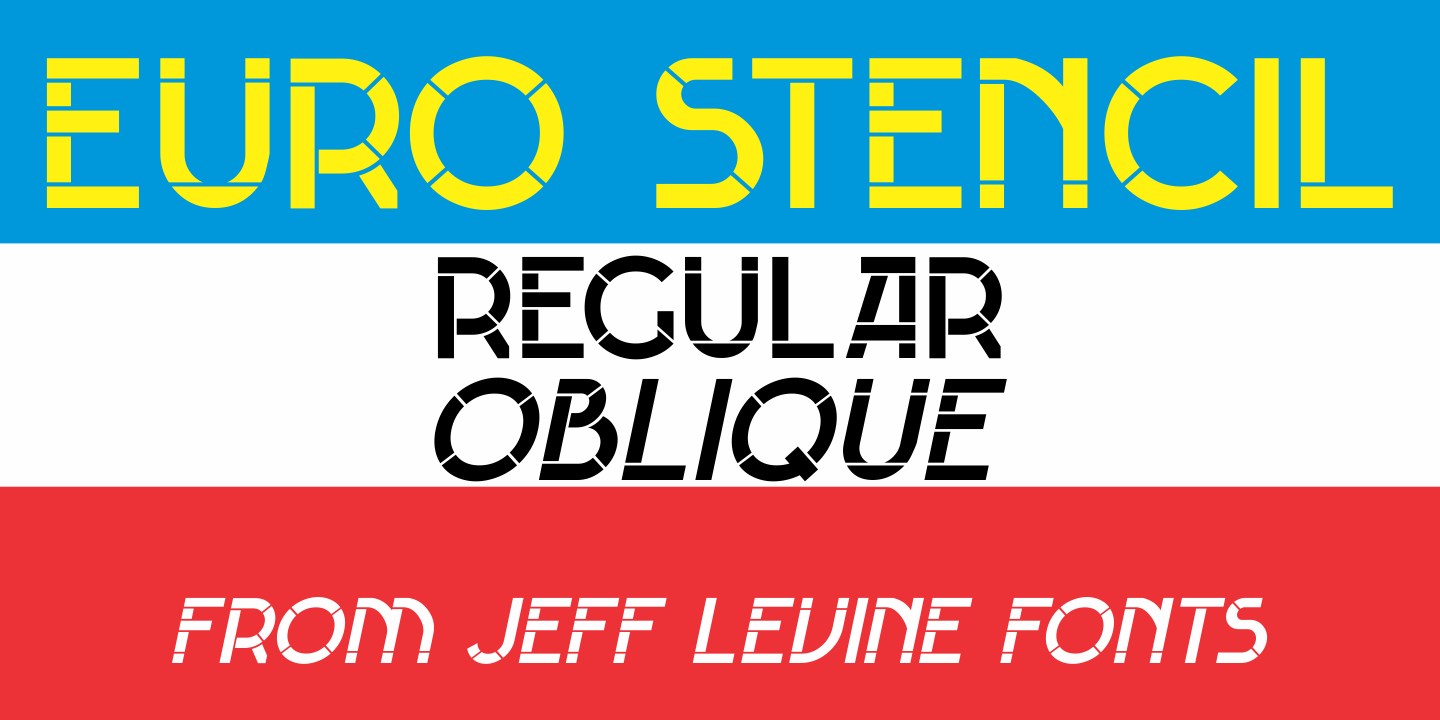
Euro Stencil JNL Font excels in industrial design applications including military-inspired branding, shipping container graphics, warehouse signage, tactical gear labeling, urban streetwear designs, construction site materials, automotive parts packaging, industrial equipment branding, military surplus marketing, and utilitarian product designs. This robust typeface seamlessly combines European stencil tradition with practical functionality, making it an essential tool for designers working on projects that require durability, clarity, and authoritative industrial character.
What makes Euro Stencil JNL Font particularly exciting is its authentic recreation of classic European military and industrial stenciling that captures the essence of post-war utilitarian design and functional typography. The font features bold, cut-out letterforms with distinctive stencil breaks that reflect the practical requirements of spray-painting and mechanical reproduction used in European industrial and military applications. Its robust construction and high contrast design ensure maximum legibility even under challenging conditions, while the characteristic stencil gaps add visual interest and authentic military-industrial character. The typeface's ability to convey both authority and practicality makes it perfect for brands seeking to establish connections with European industrial heritage and military precision. Each character has been carefully designed to maintain the authentic stencil aesthetic while ensuring optimal performance across modern design applications.
The Euro Stencil JNL Font family encompasses essential variations including Regular and Bold weights, maintaining consistent European stencil DNA while offering flexibility for hierarchical industrial typography. The family may also feature condensed versions that preserve the military character while maximizing space efficiency, plus extended variants for large-scale industrial applications. Special cuts could include weathered or distressed versions that enhance the authentic military surplus appearance, along with outline styles that emphasize the stencil construction method.
Industrial design professionals consistently choose Euro Stencil JNL Font Free Download for projects demanding authentic European military aesthetics and industrial functionality. This exceptional typeface has gained recognition in the industrial design community for its meticulous attention to historical stencil details and exceptional durability characteristics. The font's practical character set includes military-standard punctuation marks, European numerals, and specialized symbols that support comprehensive industrial branding and utilitarian communication needs.
Whether you're developing military-inspired product branding, creating industrial signage systems, designing tactical equipment graphics, or crafting utilitarian marketing materials, Euro Stencil JNL Font delivers exceptional results. Its industrial aesthetic makes it particularly suitable for military surplus retailers, construction companies, automotive manufacturers, shipping organizations, and tactical gear brands seeking to communicate durability, precision, and European industrial heritage through their visual identity.
The font's technical specifications ensure optimal performance across all industrial applications while maintaining its authentic stencil character. It includes comprehensive character encoding that supports European language requirements, making it suitable for international industrial brands and multilingual military-inspired projects. The careful digitization process preserves the distinctive characteristics of European stencil cutting while ensuring consistent reproduction across both digital displays and industrial printing applications.
Professional designers appreciate Euro Stencil JNL Font's ability to convey industrial strength and European military precision while maintaining commercial viability and brand recognition. Its authoritative presence commands respect while remaining highly functional for comprehensive industrial branding systems. The font's military heritage helps organizations establish credibility in industrial markets while connecting with audiences who value European craftsmanship, military precision, and authentic utilitarian design solutions.